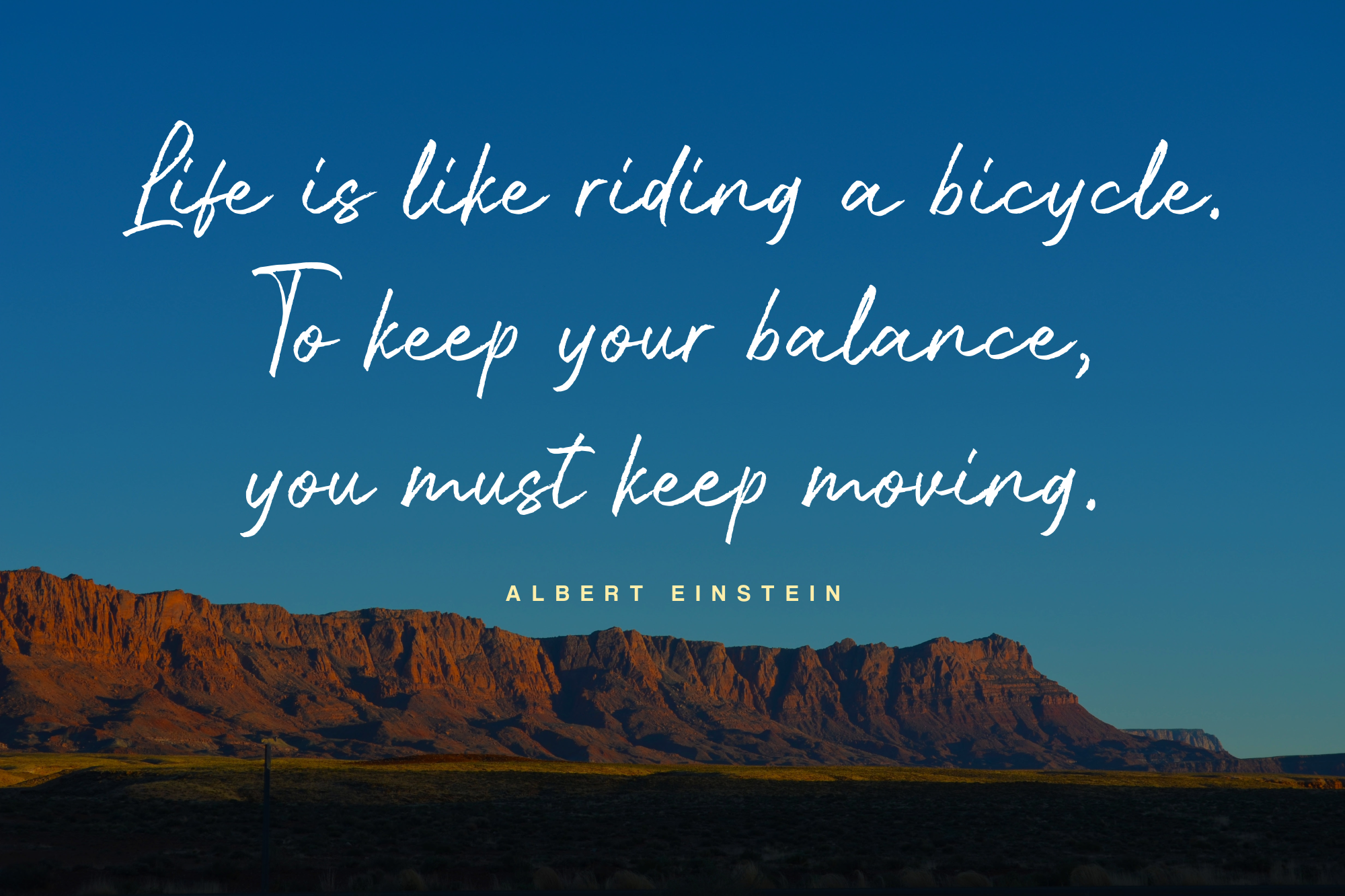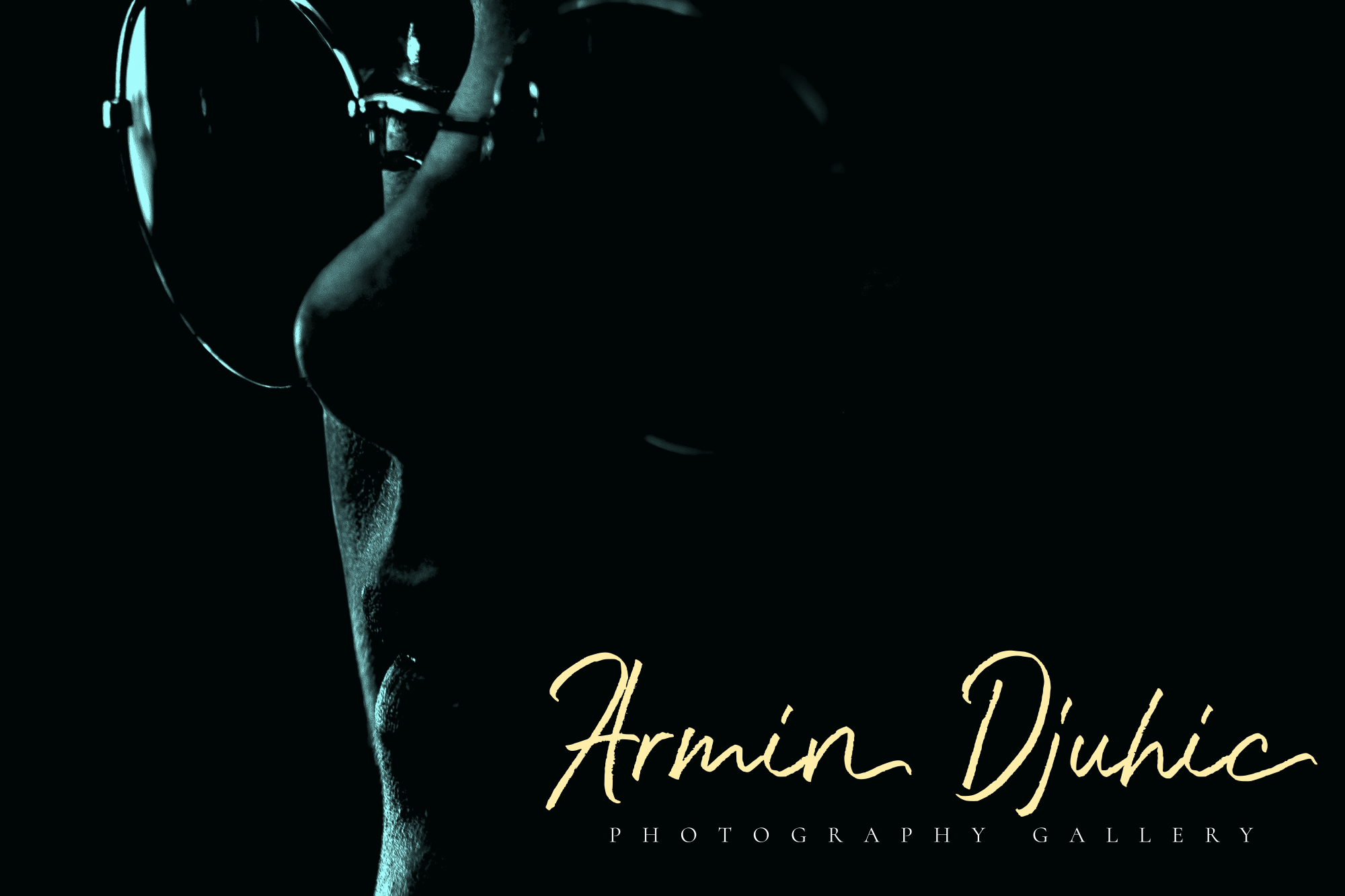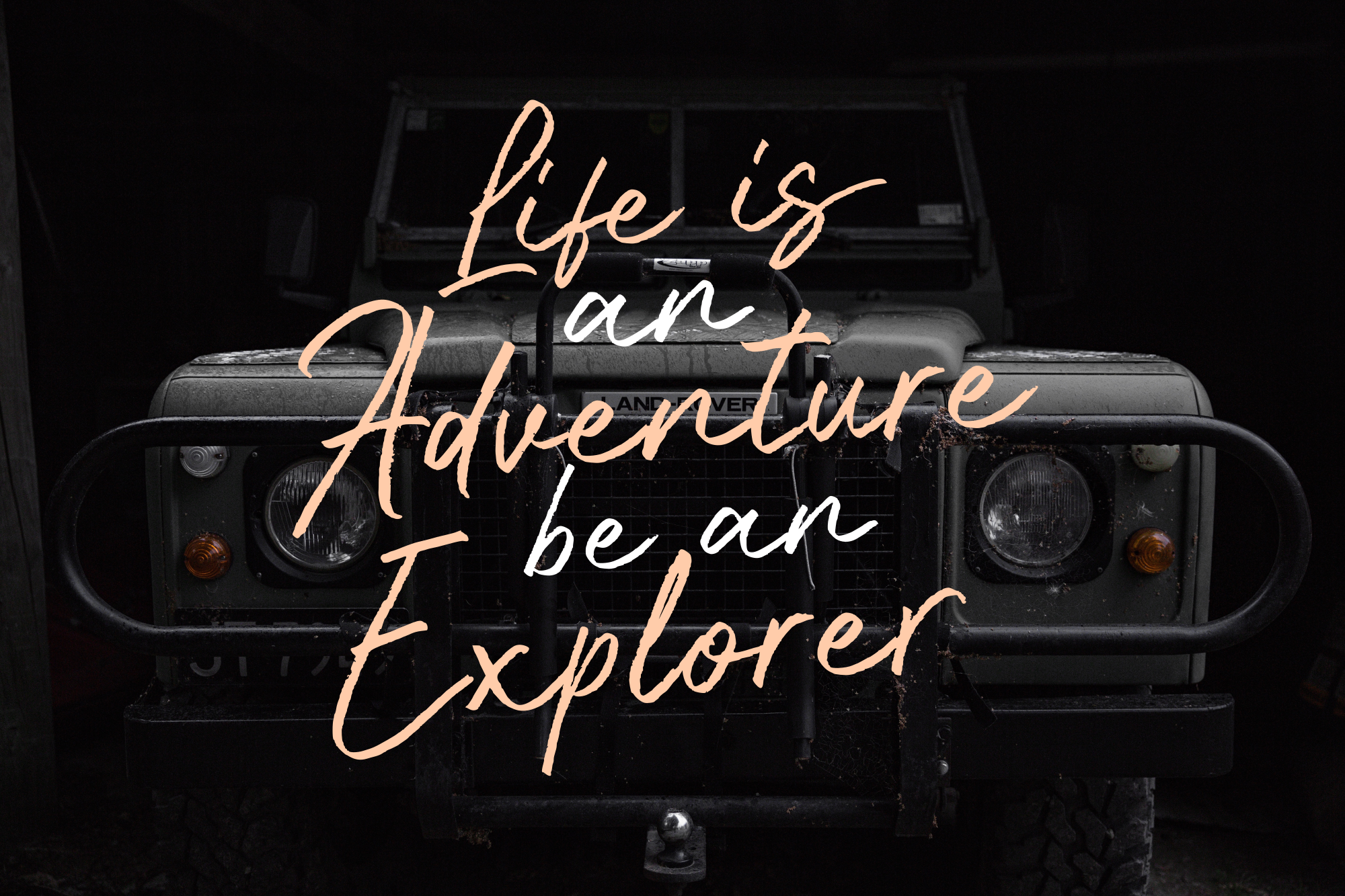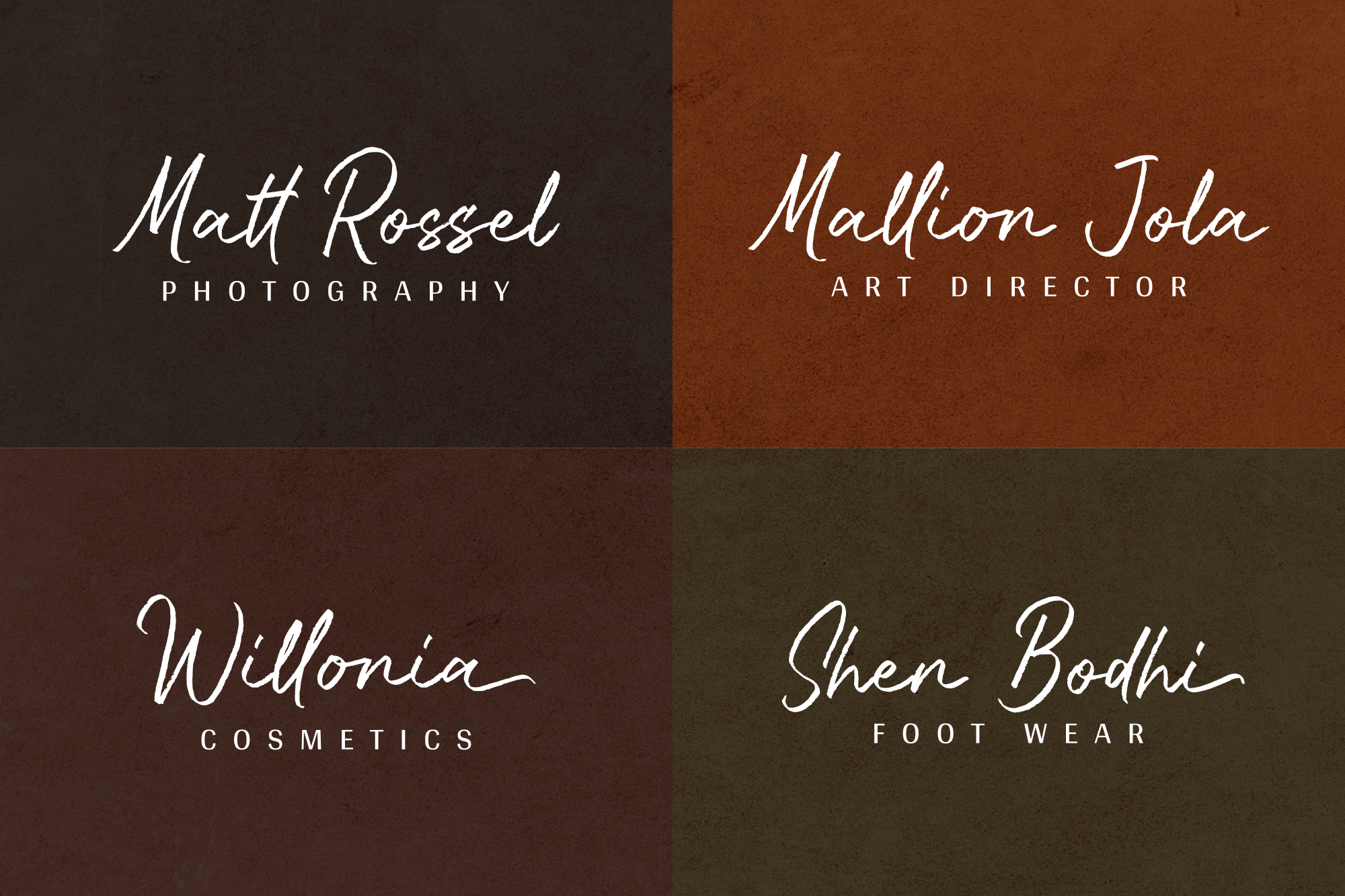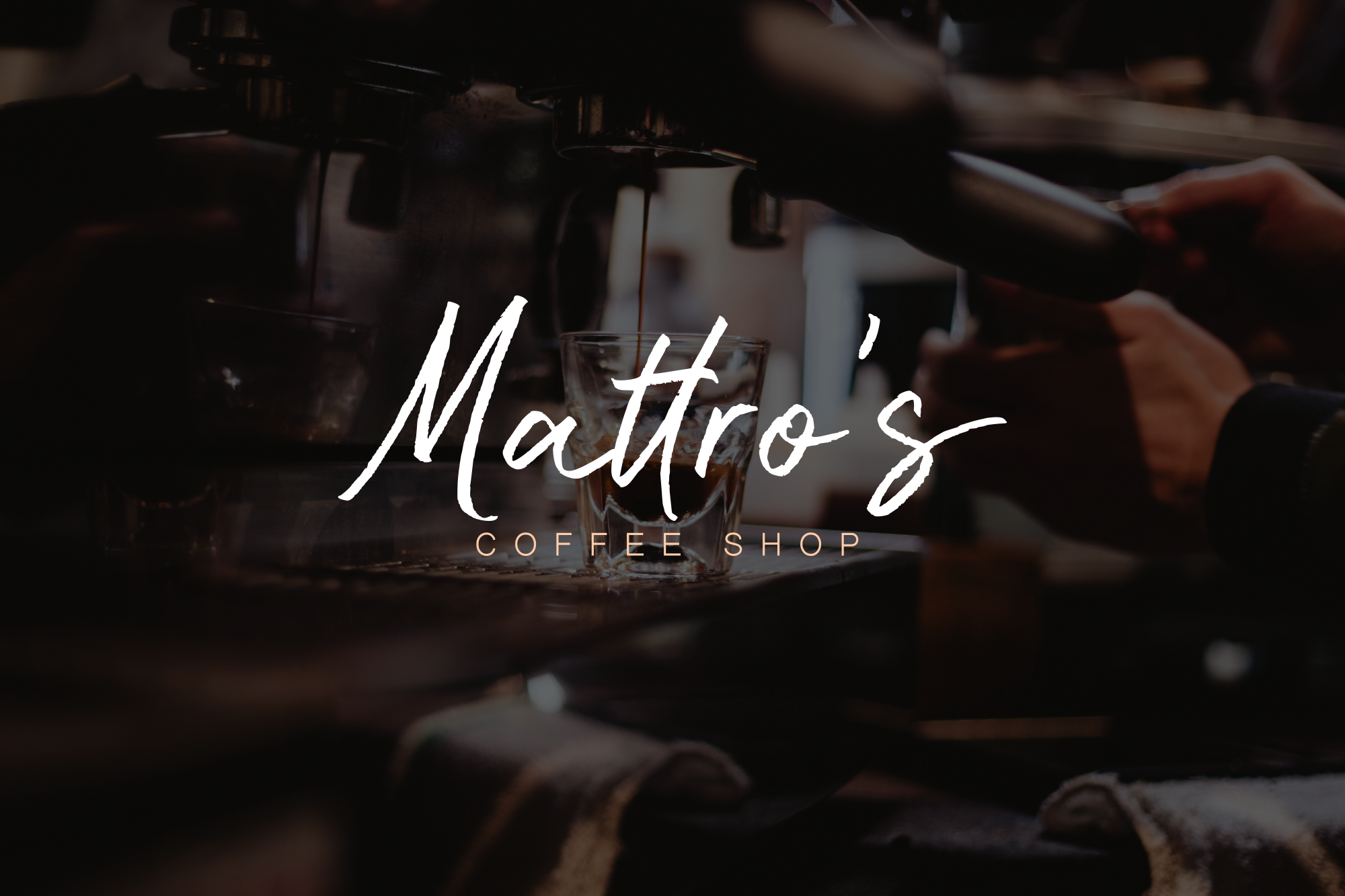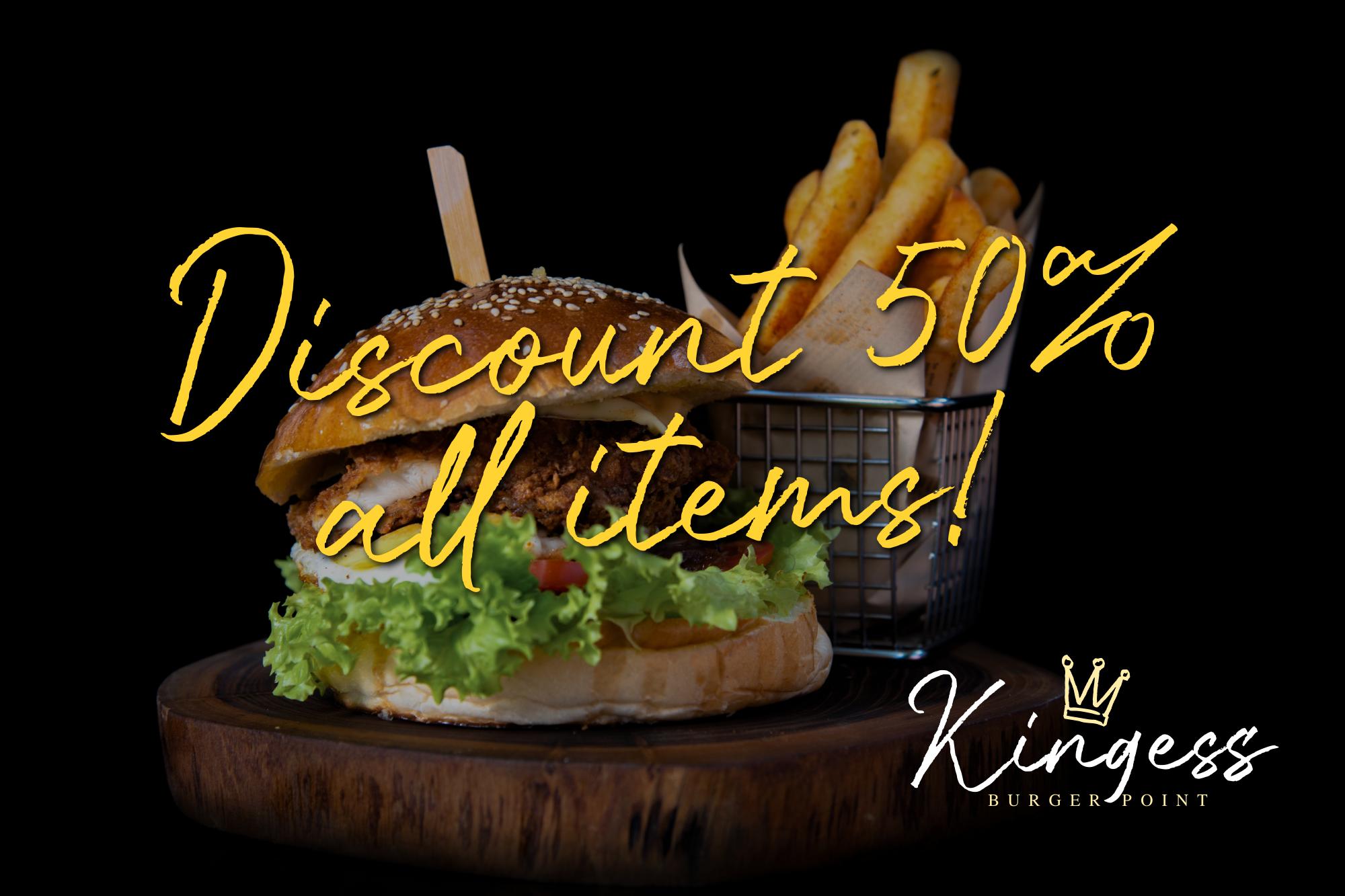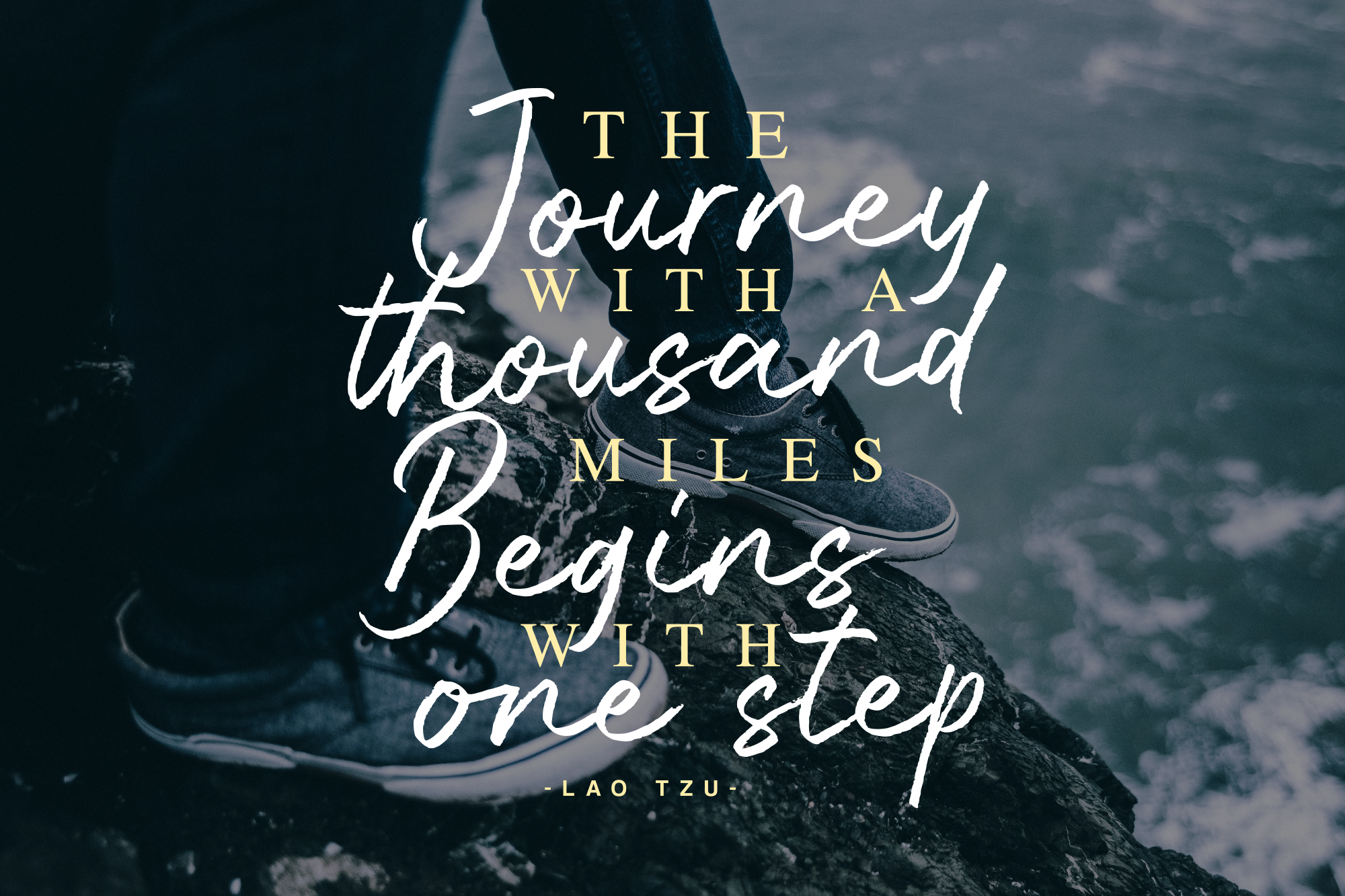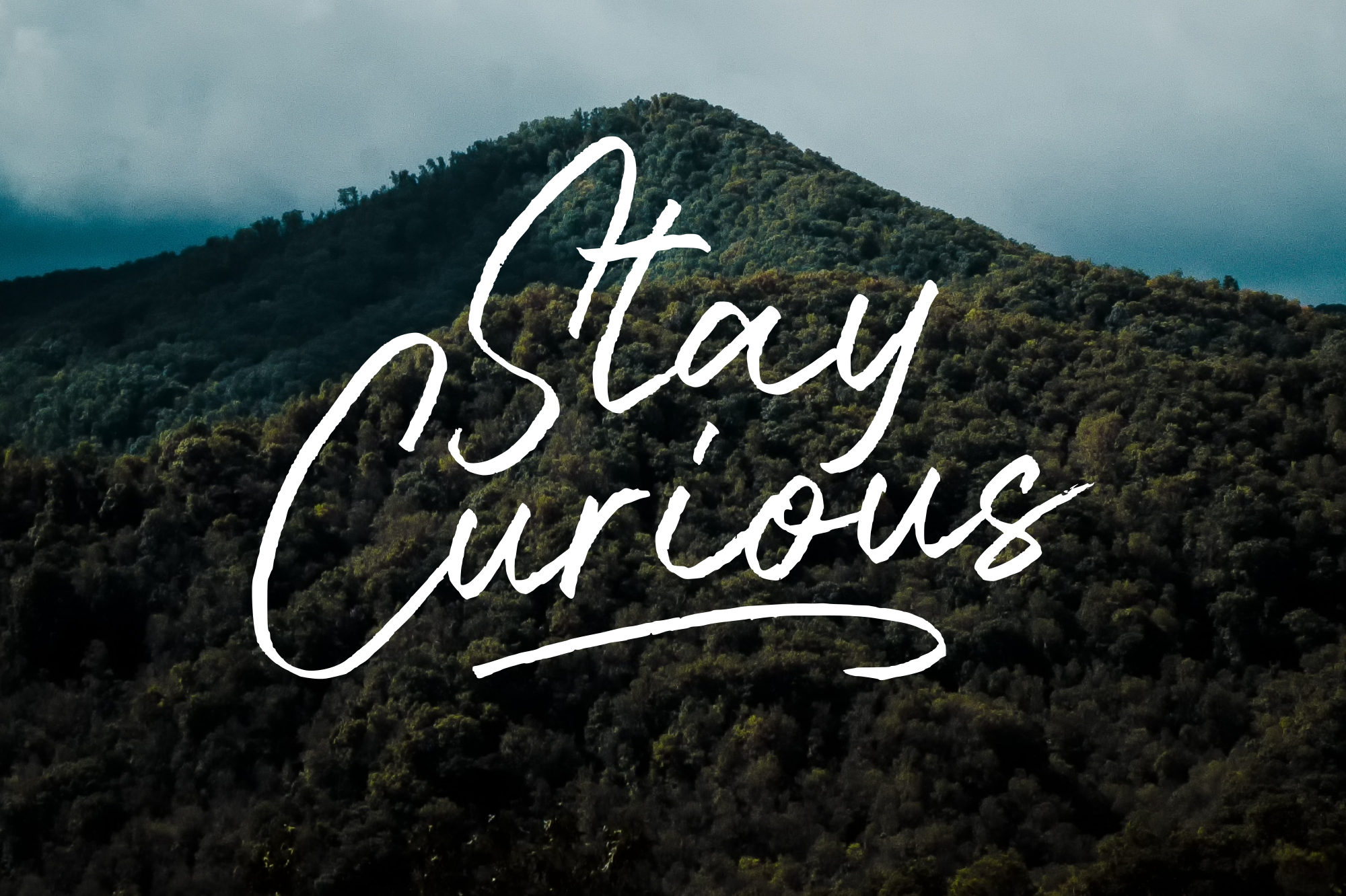
Bluehill - Handmade Marker Font
Bluehill is a charming handwritten font with a bold and confident feel. It adds a sophisticated handmade touch to your design projects.
Bluehill is a charming handwritten font with a bold and confident feel. It adds a sophisticated handmade touch to your design projects. It can be used for logos, branding, packaging, posters, labels, quotes, social media designs, and more.
Logos, branding, packaging, posters, labels, quotes, social media designs,